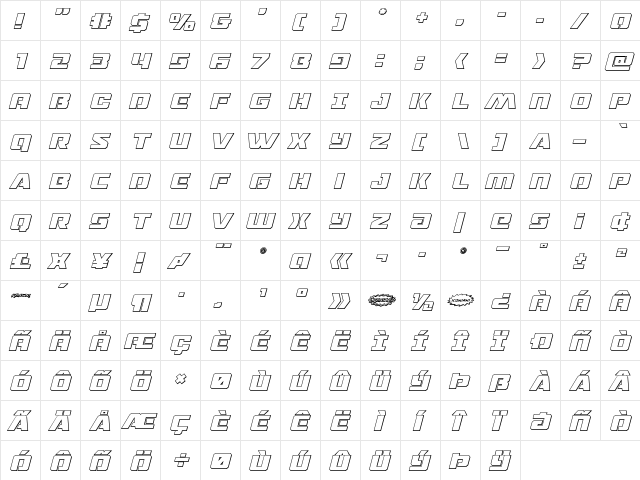
Drone Tracker Outline Italic Outline Italic
Design Context for Drone Tracker Outline Italic Typeface
Drone Tracker Outline Italic is built around its visual character rather than neutral utility — its distinctive forms are designed to make an impression at display sizes. Its italic angle brings a sense of urgency and motion to the letterforms.
Font Pairing: Pair with a clean neutral sans-serif for body copy to let Drone Tracker Outline Italic's character lead without overwhelming the composition.
Pro Tip: Use Drone Tracker Outline Italic exclusively at display sizes — it was designed to be seen, not read at length. Let a neutral companion handle body copy.